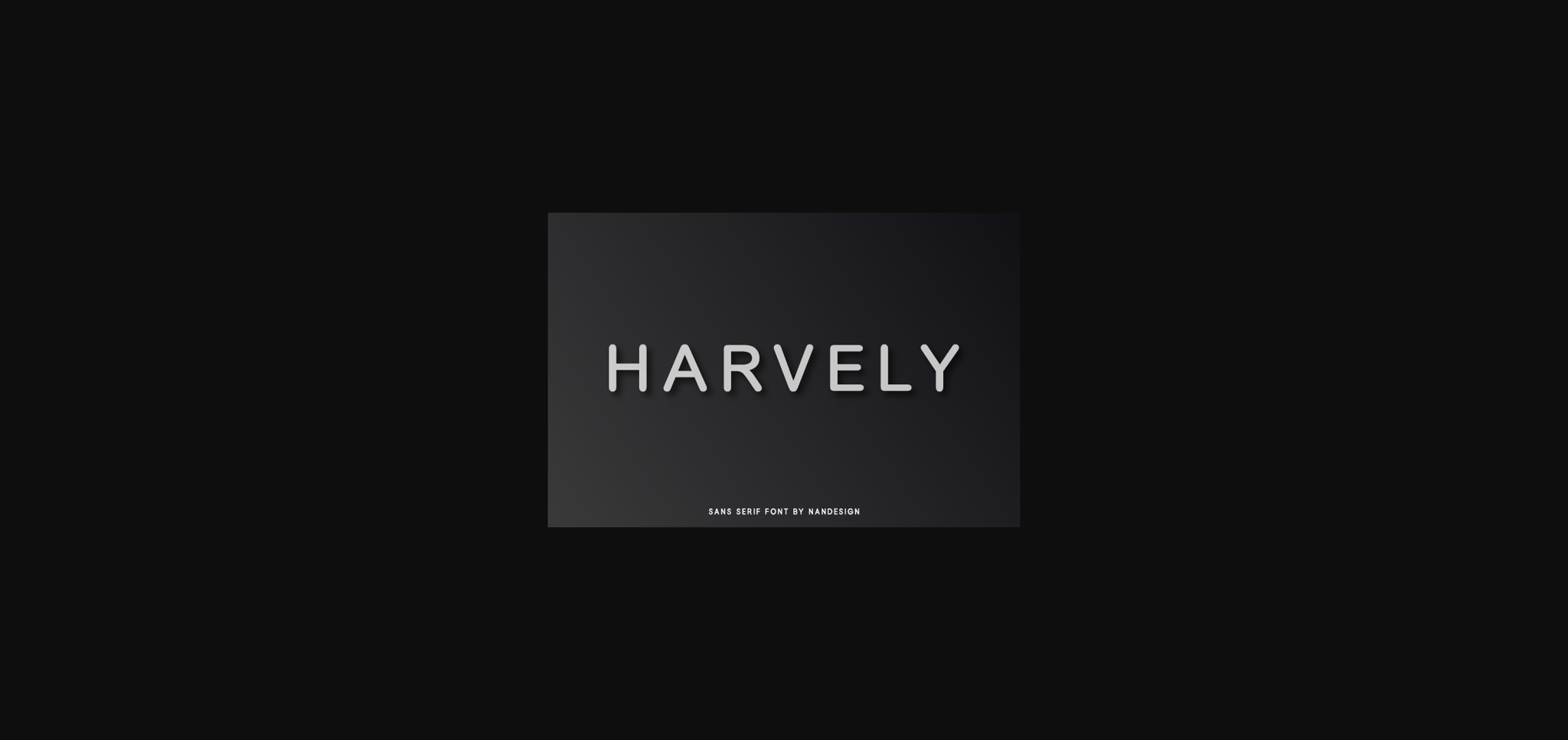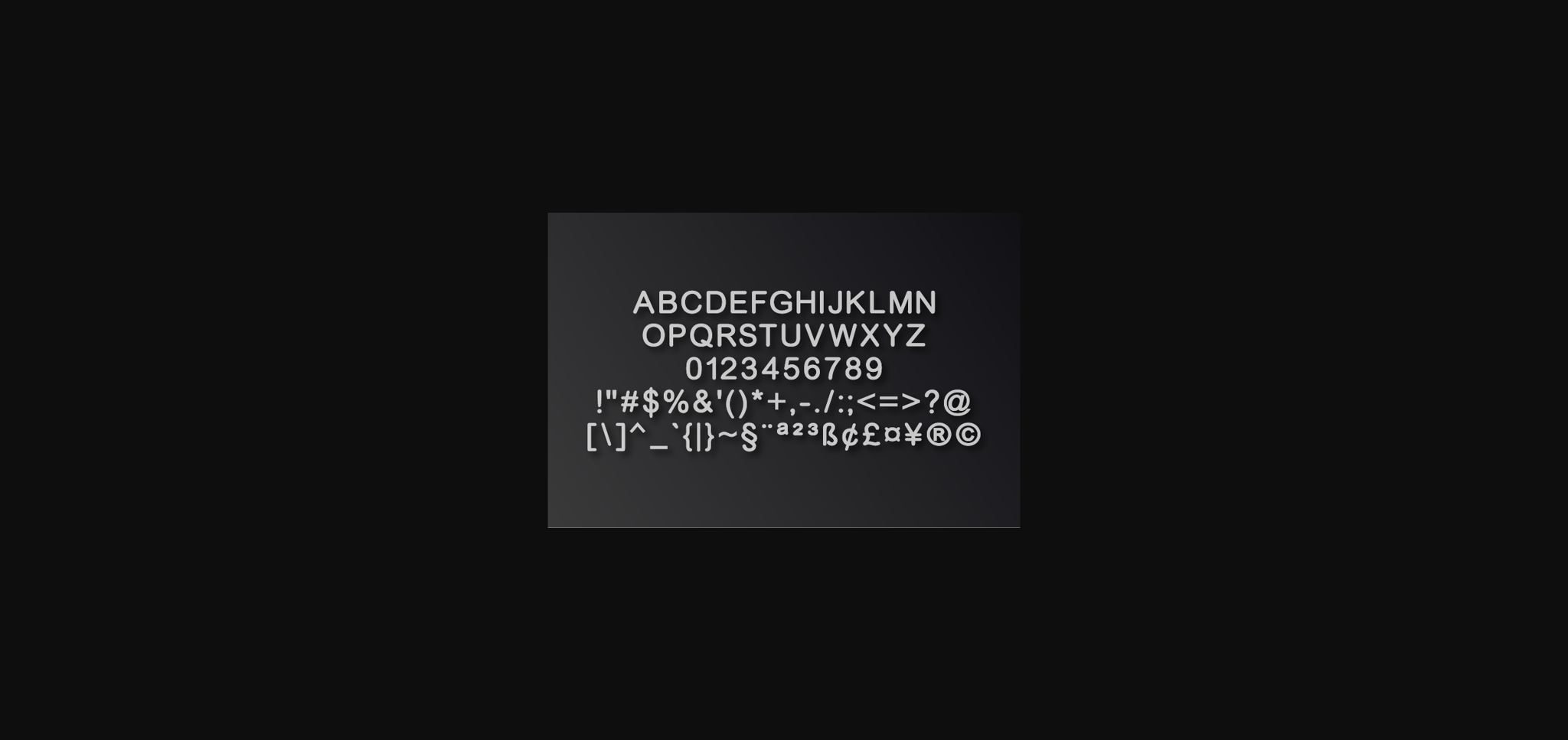
About Harvely Font
Harvely is a modern and elegant sans serif font that blends traditional influences into a contemporary aesthetic. Its well balanced Latin details contain distinctive contrasts. Use Harvely to achieve an exquisite, yet subtle look and maximum versatility.